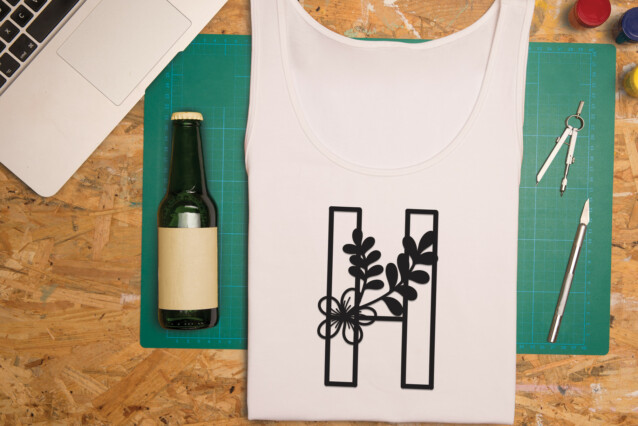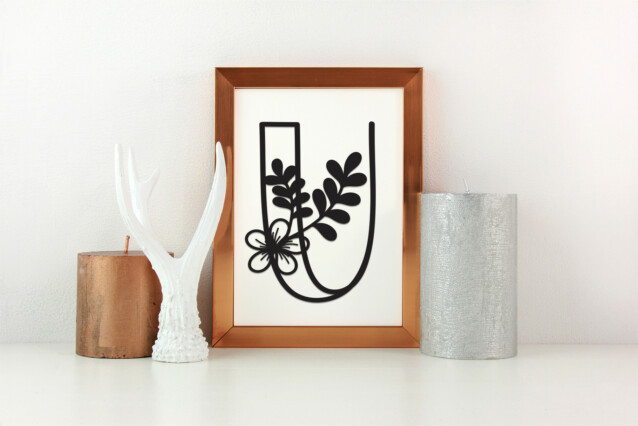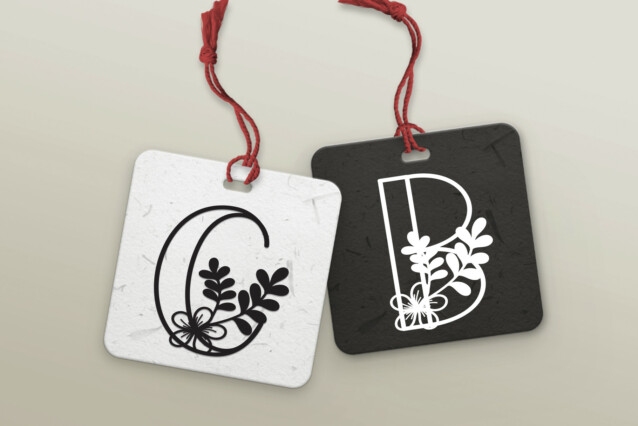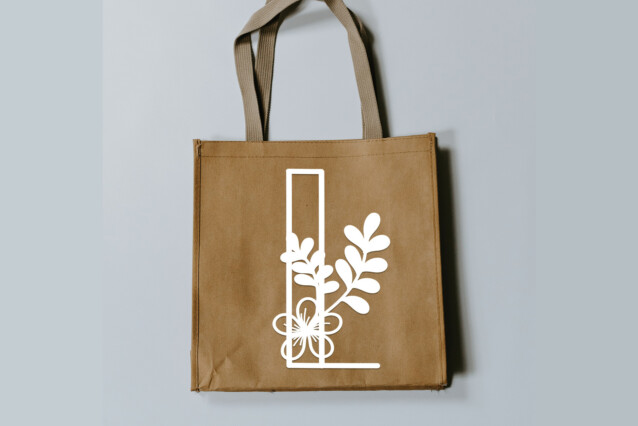
Summer Beach Display Font
Summer Beach Display Font is a gorgeous decorative font, that fits incredibly well to this time of the year. No matter the topic, this font will be an incredible asset to your fonts’ library, as it has the potential to elevate any creation.